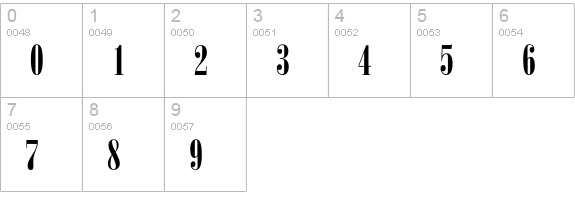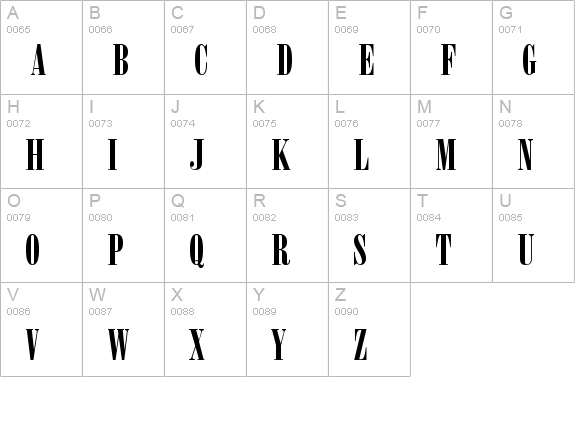
OPTIPosterBodoni-Compr Font Details
OPTIPosterBodoni-Compr is a timeless and elegant font that exudes sophistication and class. Its sleek lines and delicate curves make it perfect for a wide range of design projects, from invitations to branding to editorial layouts. This font strikes the perfect balance between modernity and tradition, making it versatile and adaptable to various design styles. The OPTIPosterBodoni-Compr font is available for free download at FontsMarket.com, where designers and creatives can easily access this beautiful typeface for their projects. Whether you're working on a wedding invitation, a business card, or a magazine spread, OPTIPosterBodoni-Compr will elevate your design and give it a touch of timeless elegance. Download this font today and add a touch of sophistication to your next project.